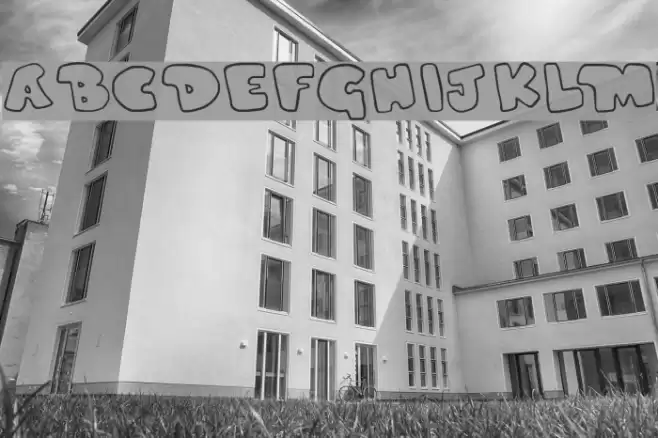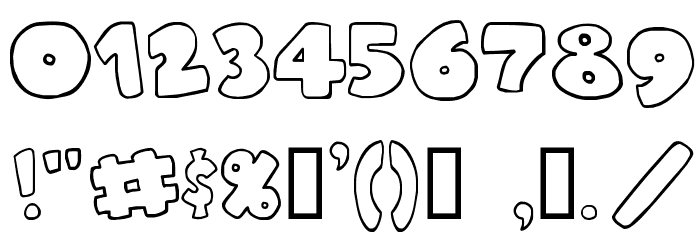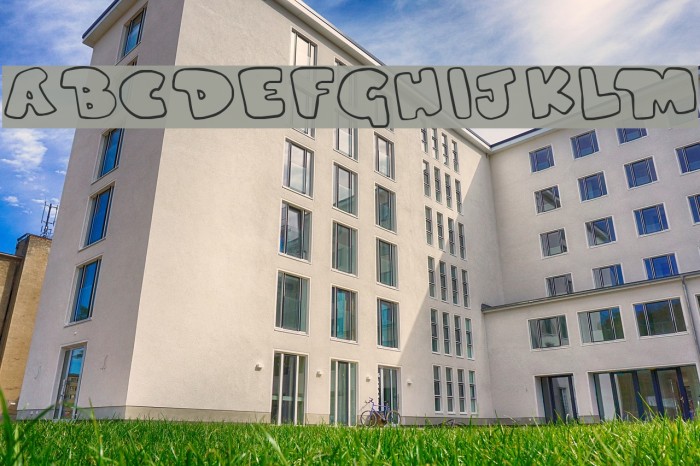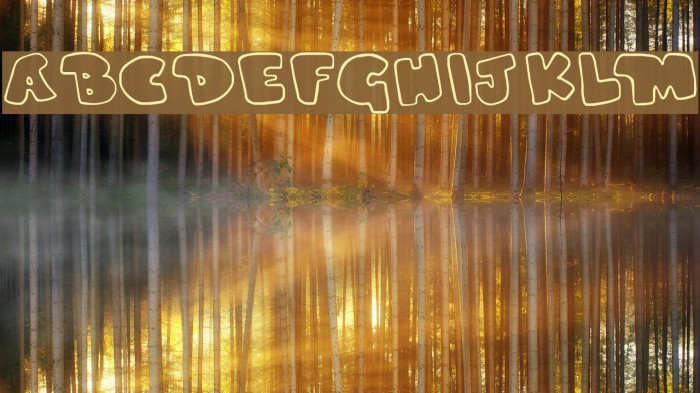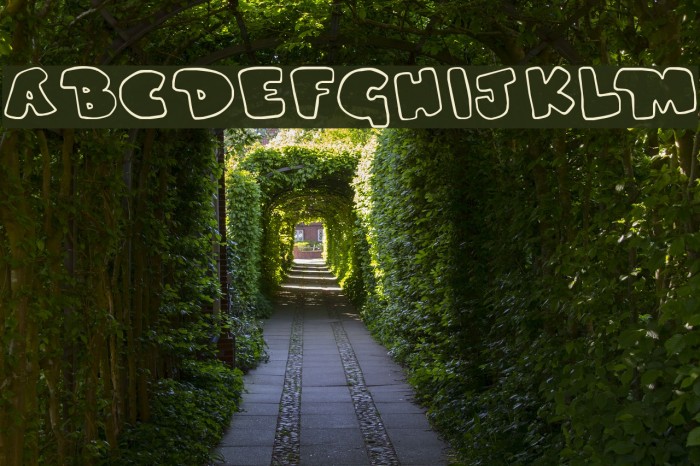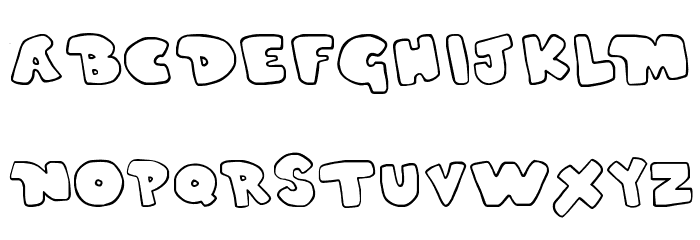
Duped Font
Duped Description
This playful and bold font features thick, rounded letters with a whimsical outline style. Each character is outlined, giving it a cartoonish and fun appearance. The font maintains a consistent thickness throughout, with a slightly irregular shape that adds to its charm. It is highly legible and stands out due to its unique design, making it ideal for creative projects. The numbers and special characters follow the same style, ensuring uniformity across all text elements.
A playful, outlined font with bold, rounded characters from Cartoon fonts.
- Proposed Projects: Ideal for children's books, comic strips, playful branding, and party invitations.
- Overall Style: Playful, Cartoonish
- Use Case: Headlines, Posters, Logos